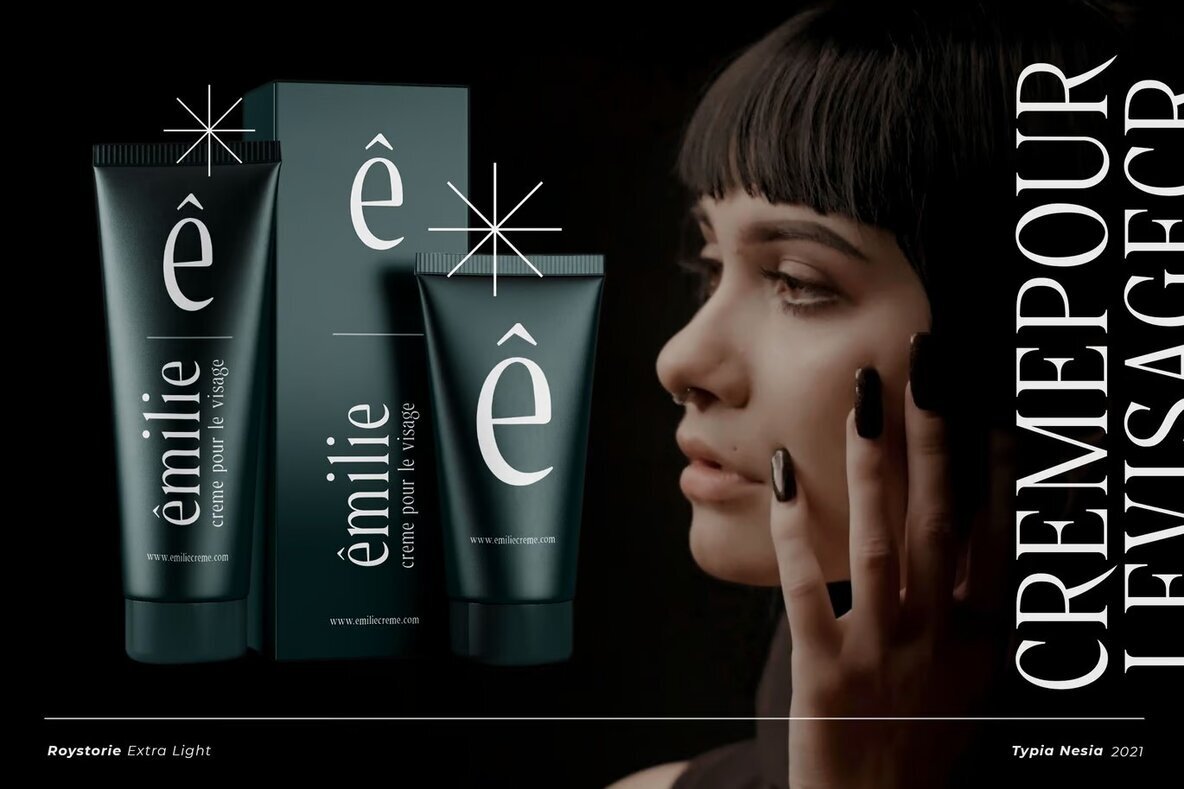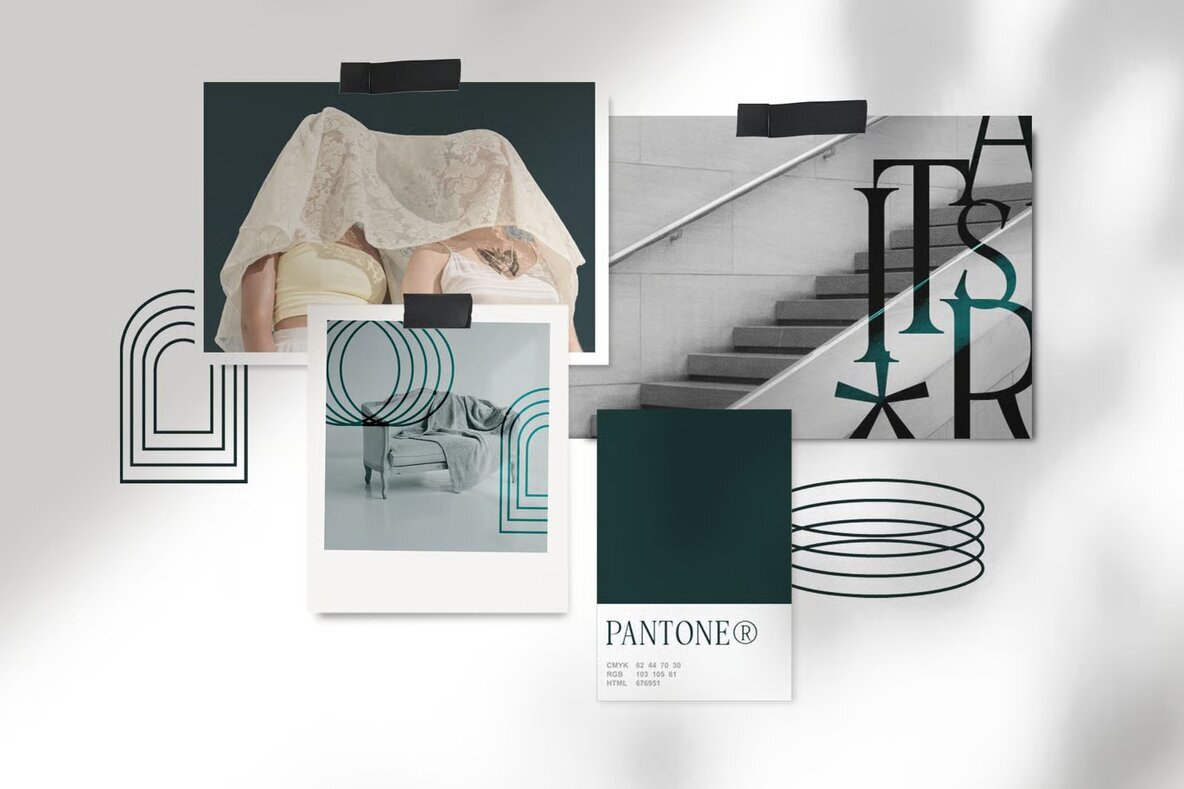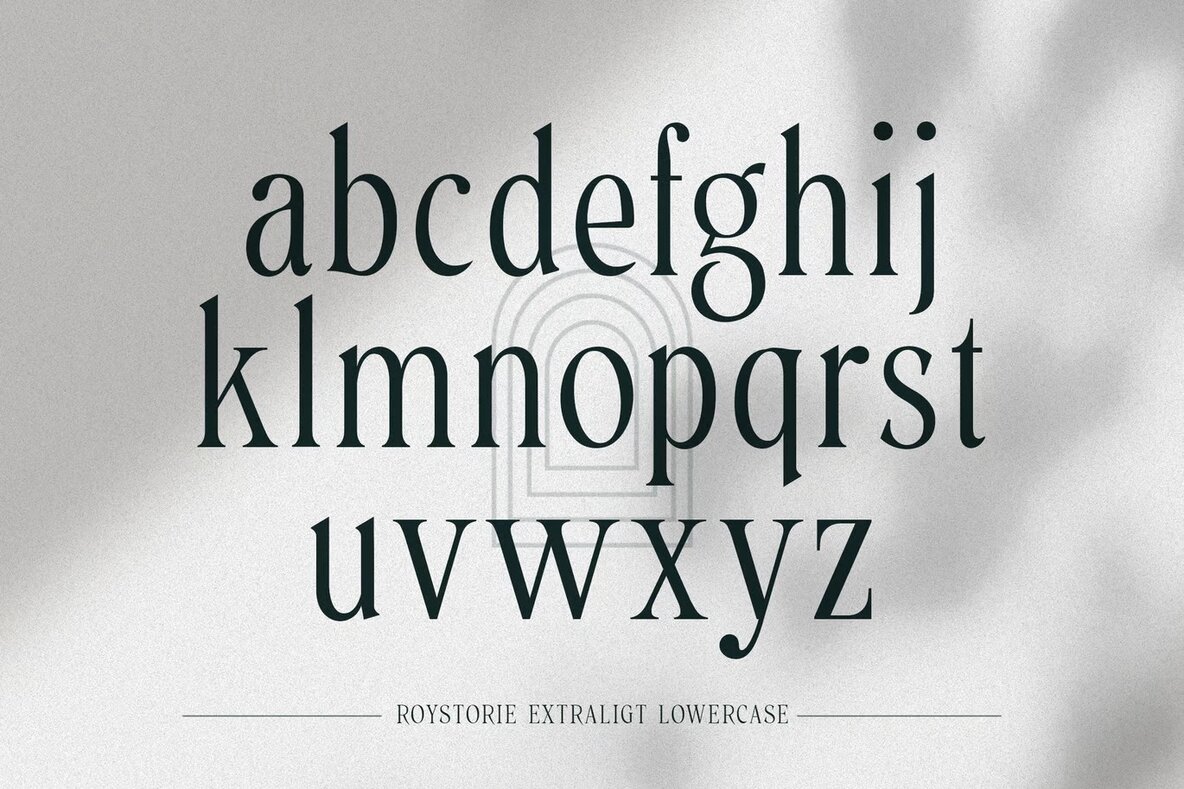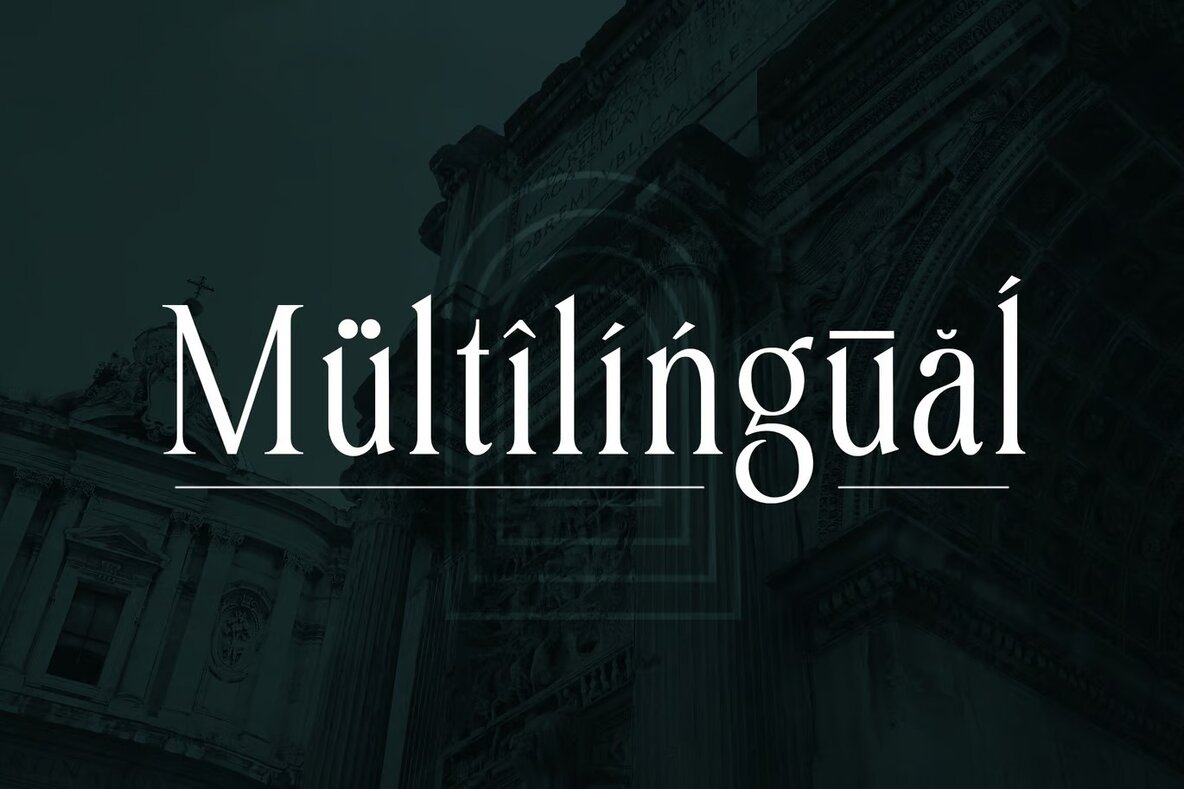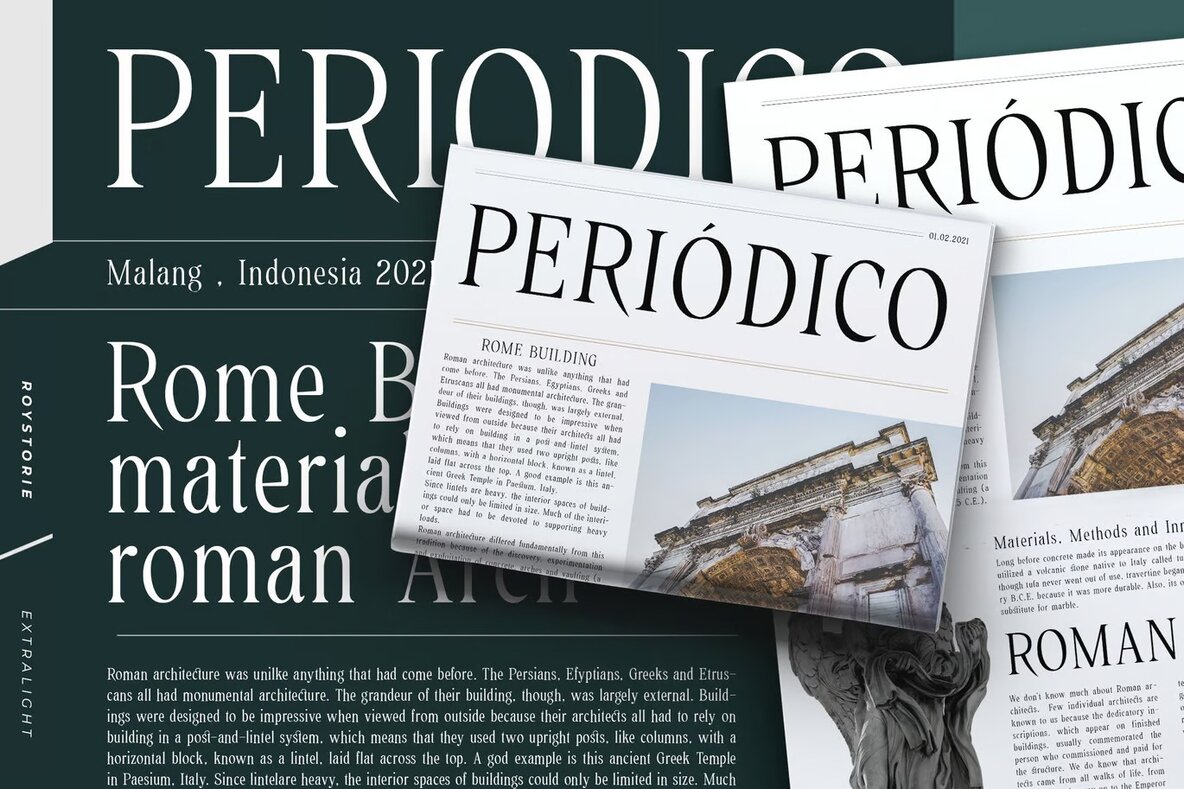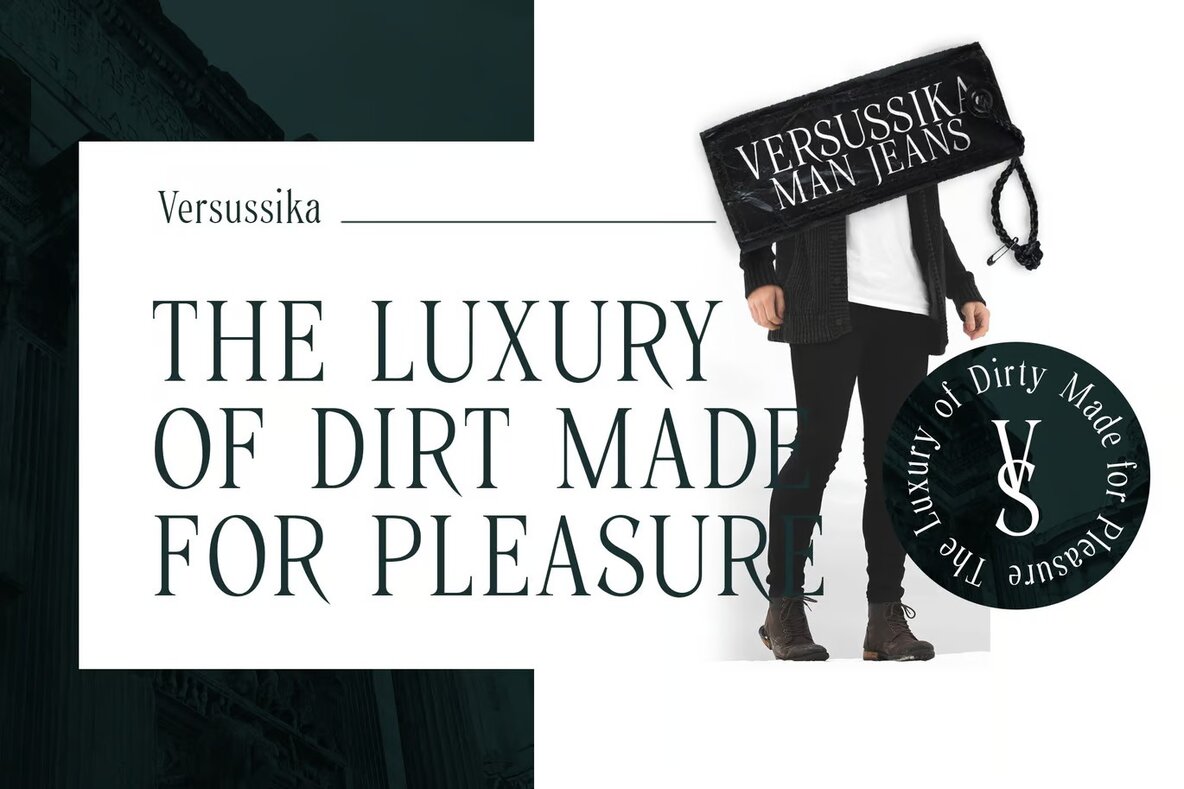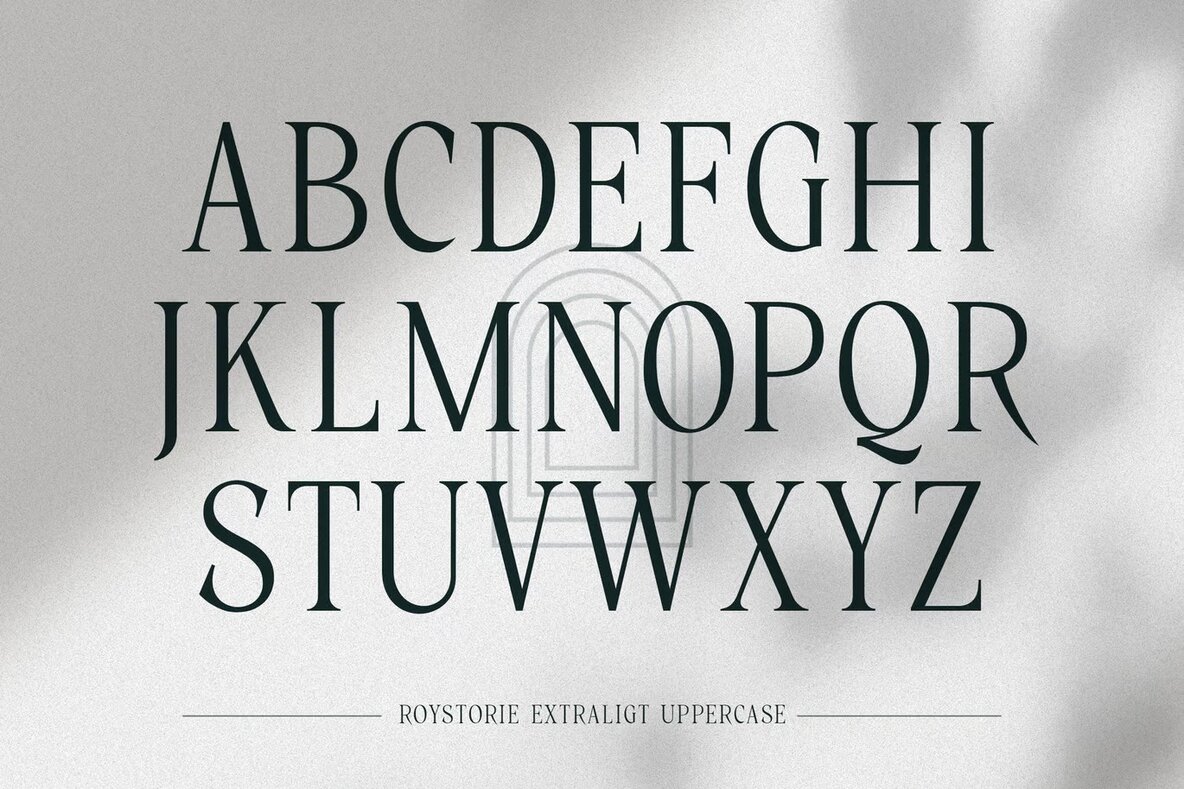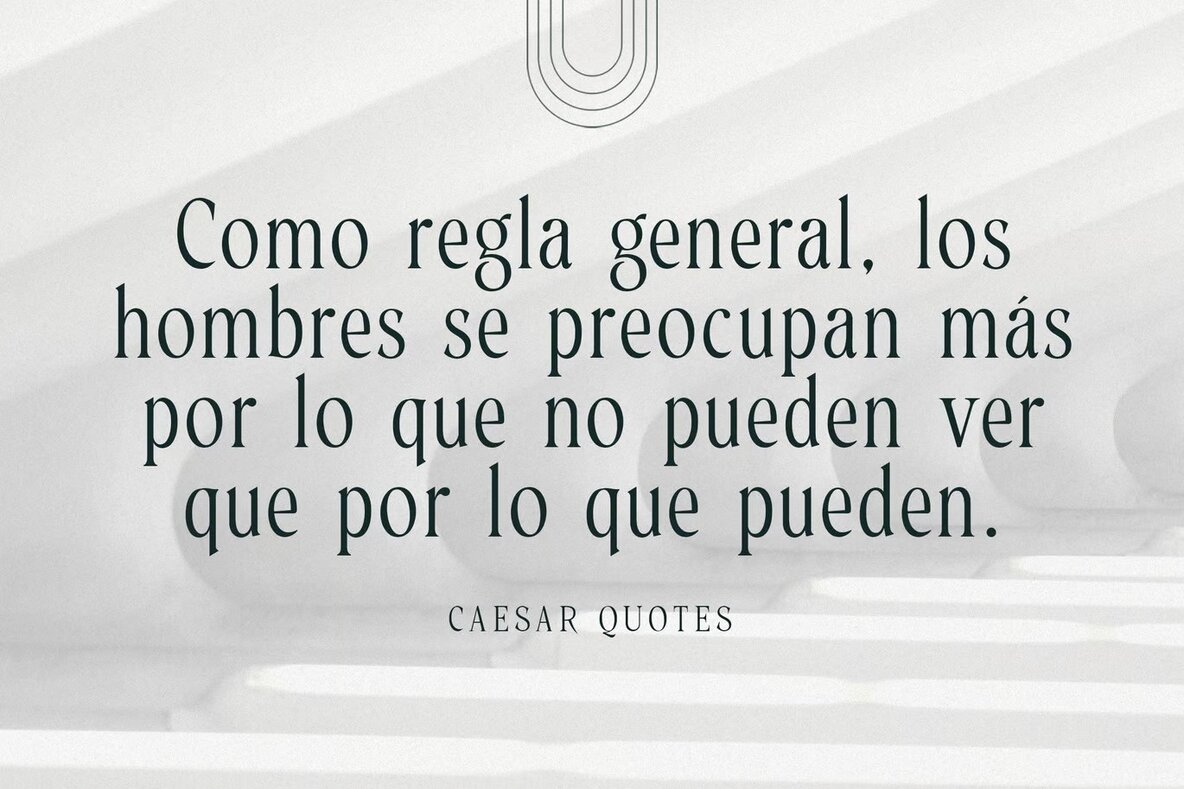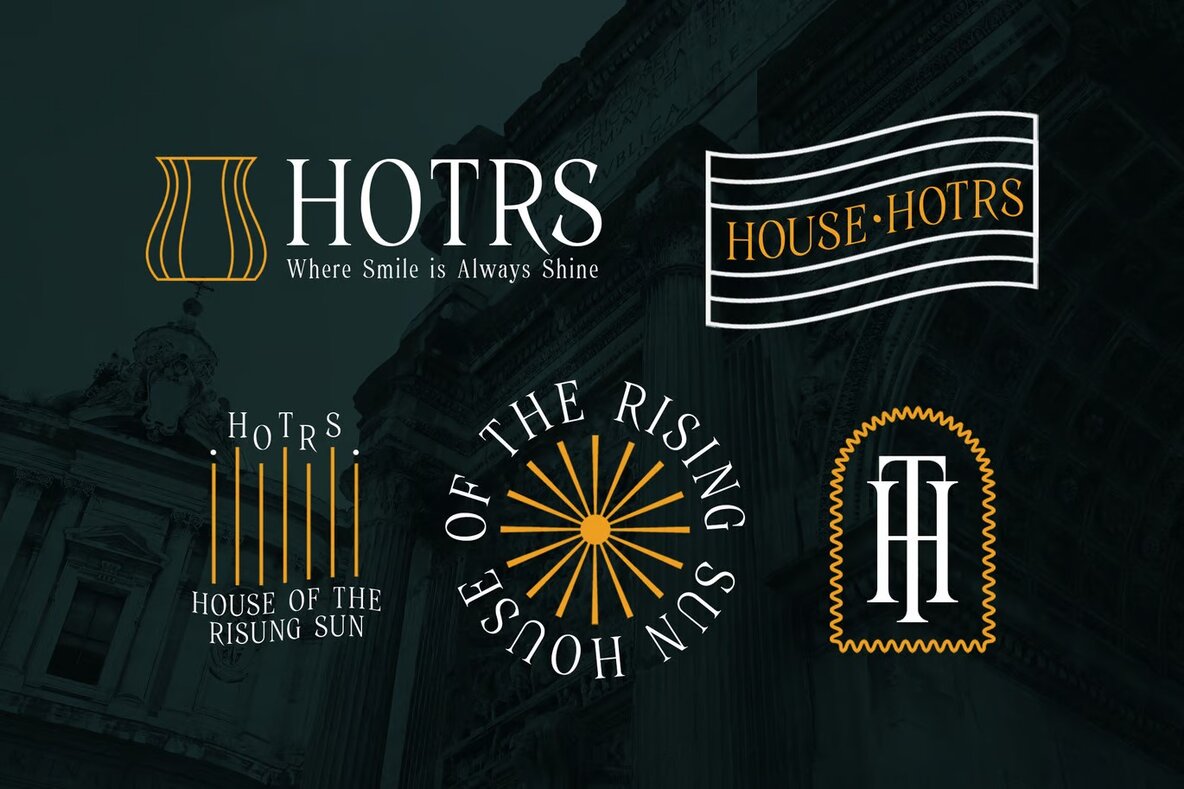
Roystorie ExtraLight Font
Roystorie Extra Light
Roystorie ExtraLight is a refined light serif typeface that exudes elegance and timelessness. Ideal for enhancing luxurious aesthetics, it is an excellent choice for luxury logos, branding projects, and classy editorial designs. Its sophisticated charm makes it suitable for women's magazines, cosmetic brands, and fashion promotions. The font's versatility extends to art gallery and museum branding, offering a historical and architectural nuance that suits boutique identities and stationery designs.
This Garalde Serif typeface serves as a perfect match for modern advertising, card invitations, and art quotes, seamlessly blending into home decor and book cover designs. Its classic style is designed to stand out in special events and various creative projects. Roystorie ExtraLight delivers a timeless aesthetic that complements a wide spectrum of design needs, always providing a touch of sophistication and class.